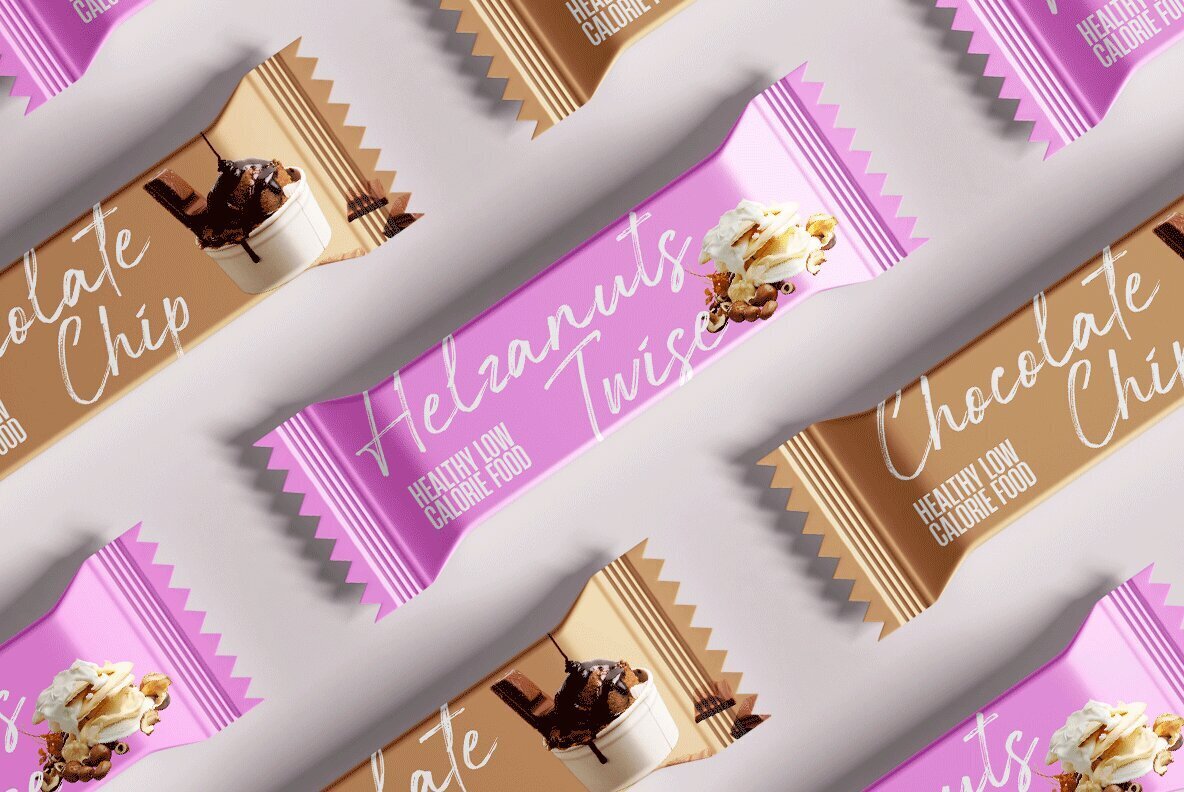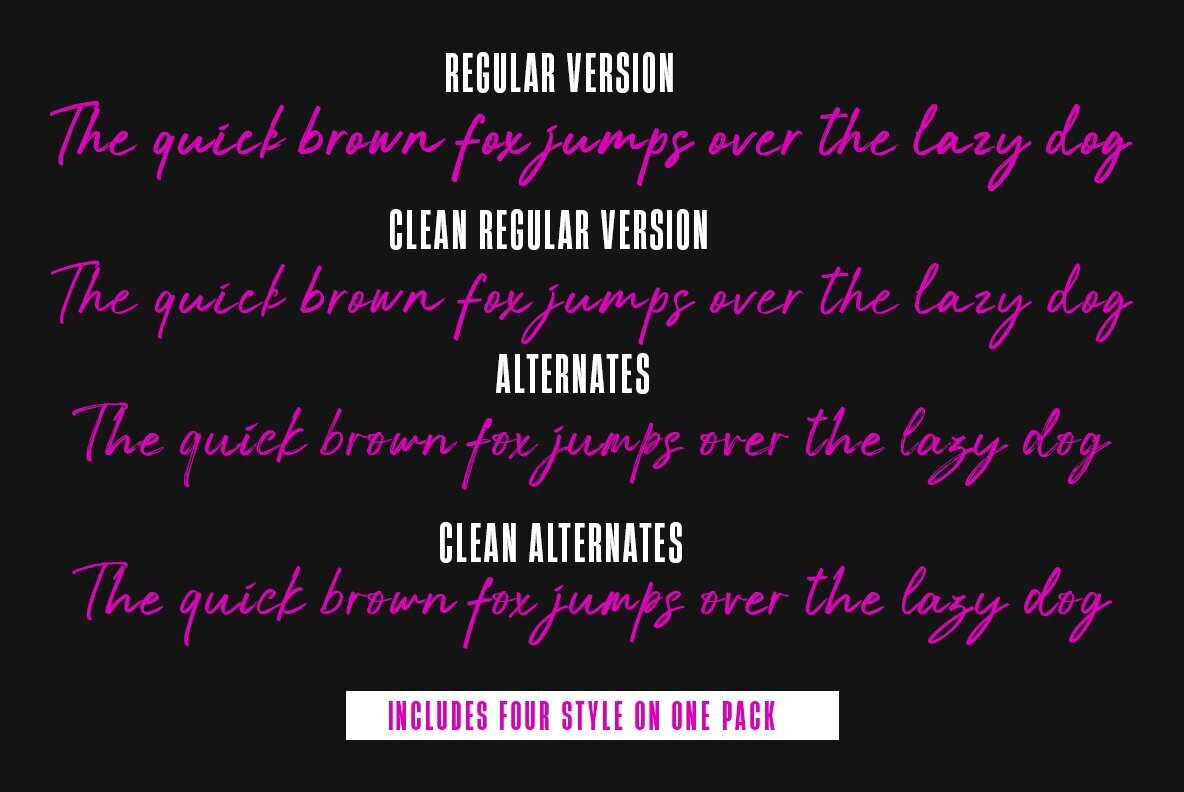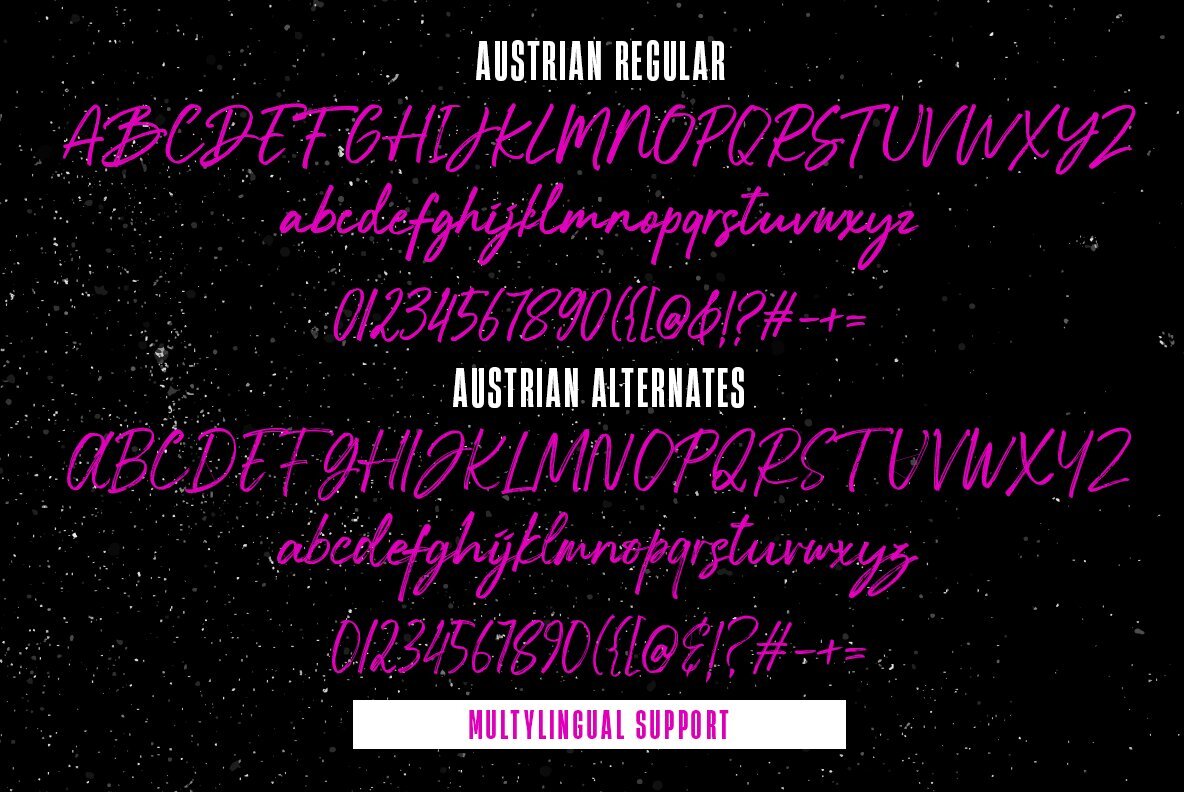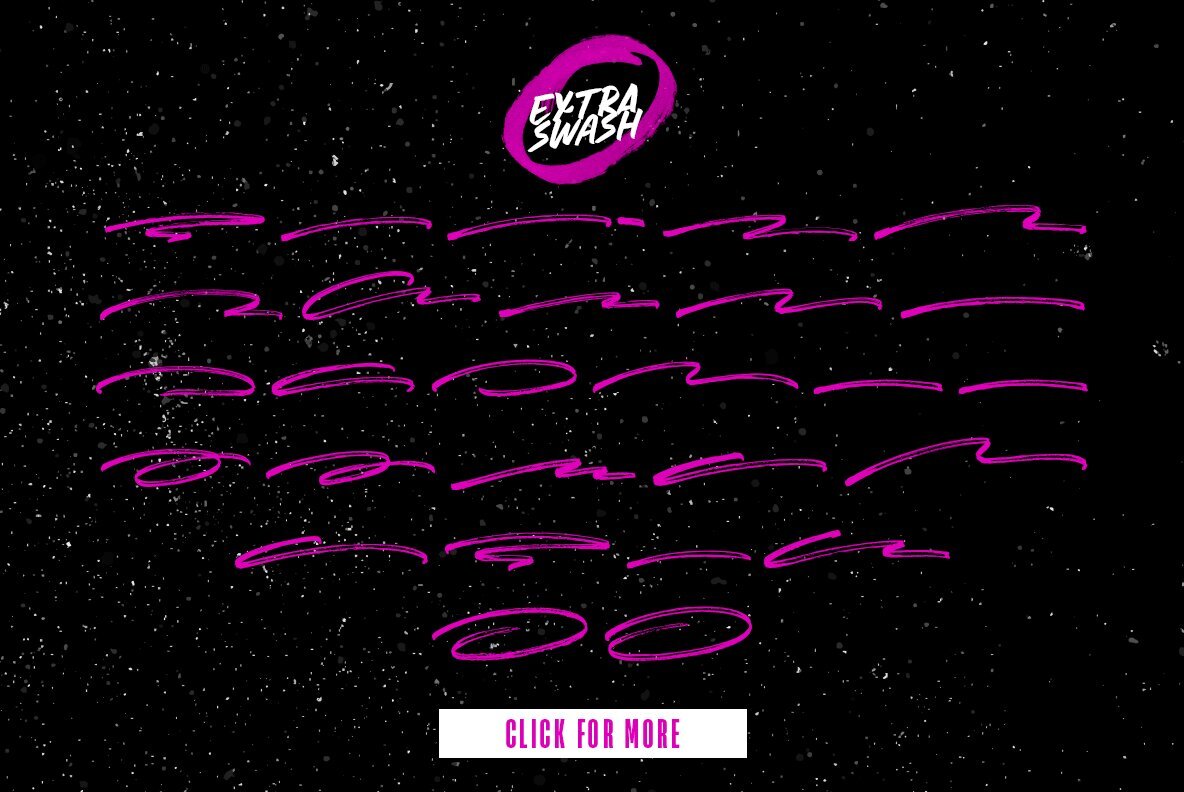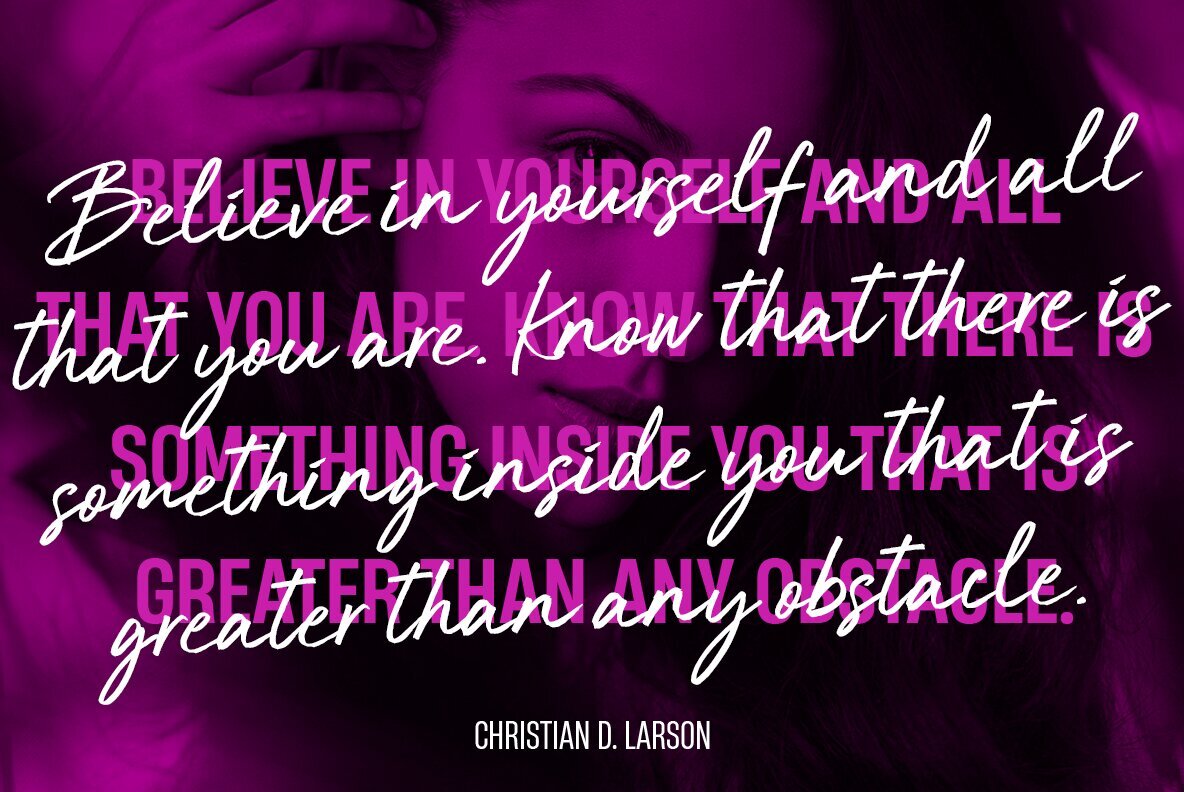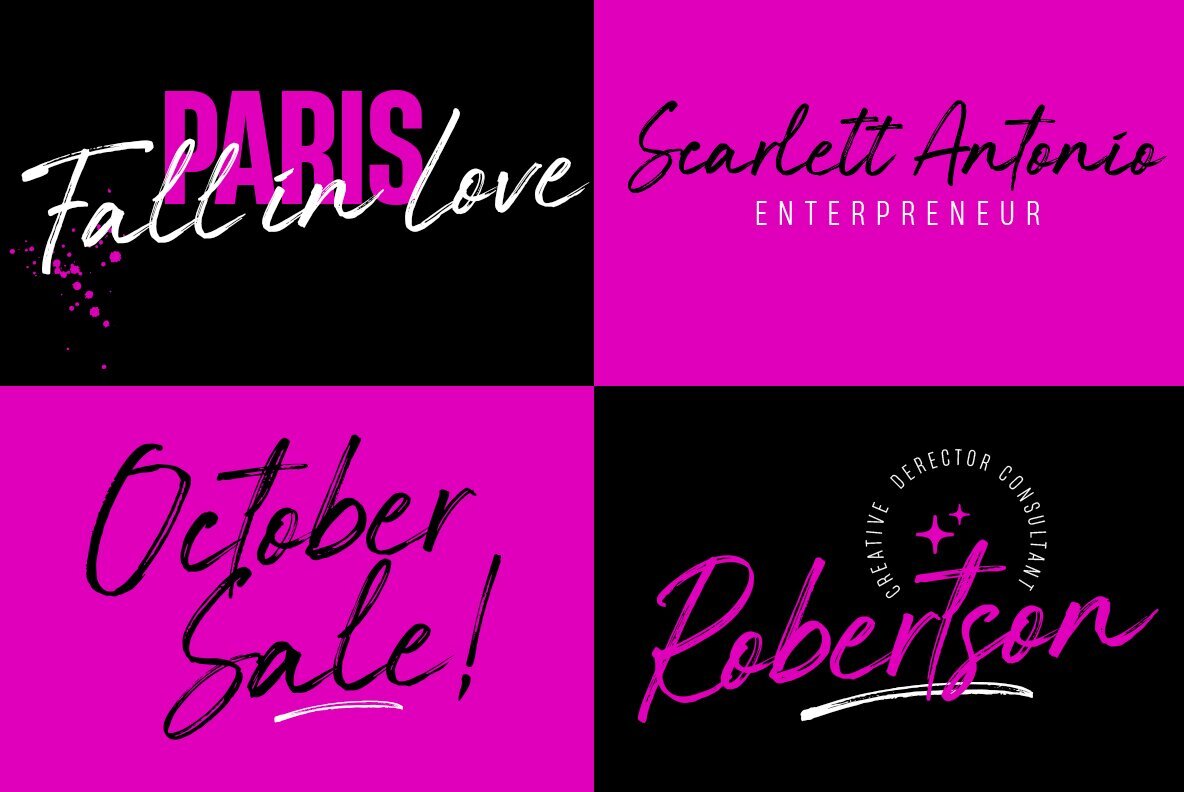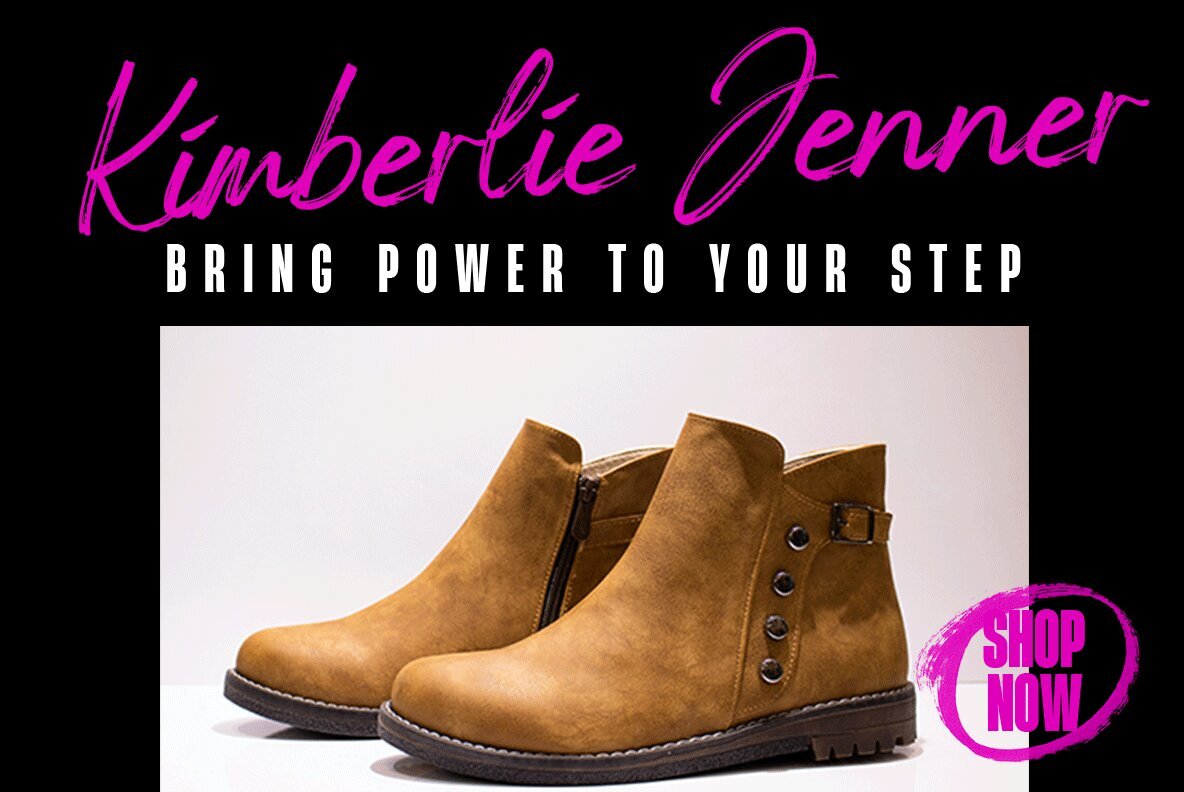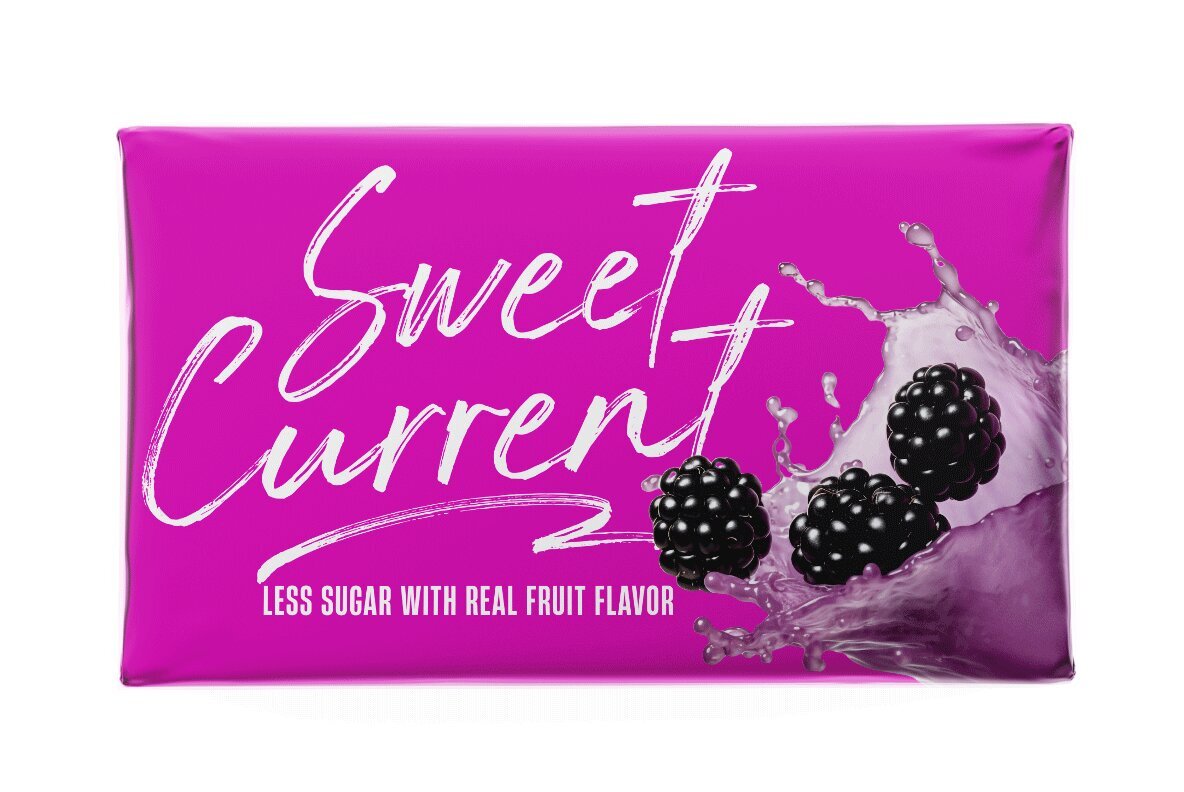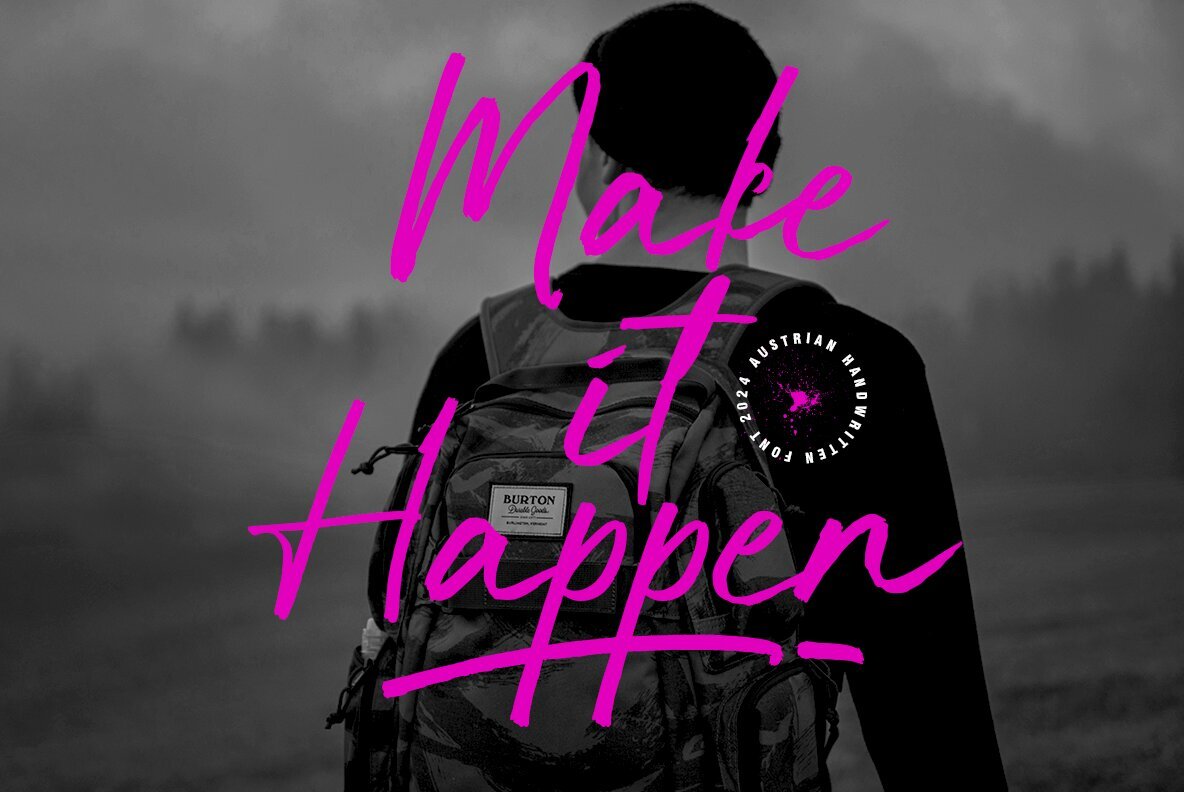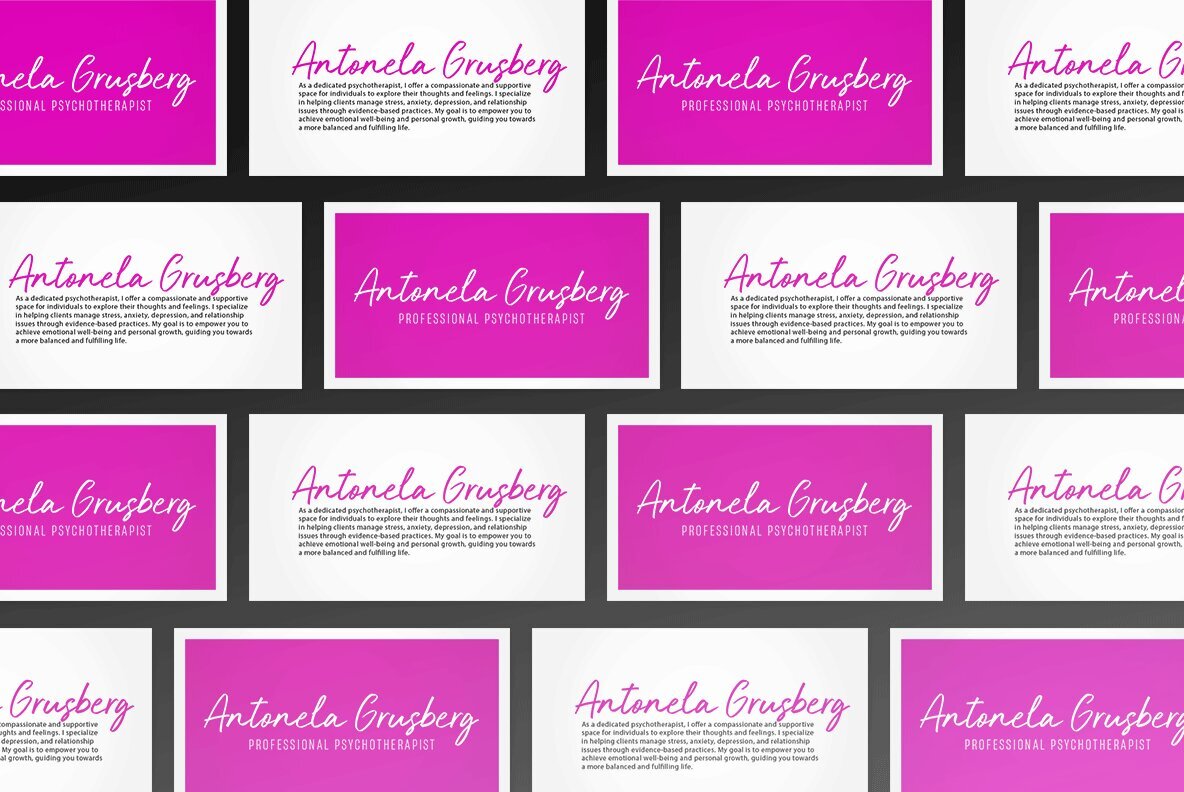
Austrian Font
Austrian is a beautifully crafted handwritten font that captures the essence of unique hand-drawn artistry. Perfect for branding, social media, invitations, and other design projects, this typeface adds a personal, crafted feel to any visual endeavor. Each stroke is meticulously designed to maintain consistency while highlighting its handcrafted charm, making it a versatile choice for both digital and print formats.
One of Austrian's key features is its dual typeface options: Austrian Regular and Austrian Alternative, each available in a clean version for added versatility. These variations allow designers to experiment with different looks and feels, ensuring that Austrian stands out in any context. With its distinctive strokes and artistic flair, Austrian enhances every design with an authentic touch of elegance and creativity.